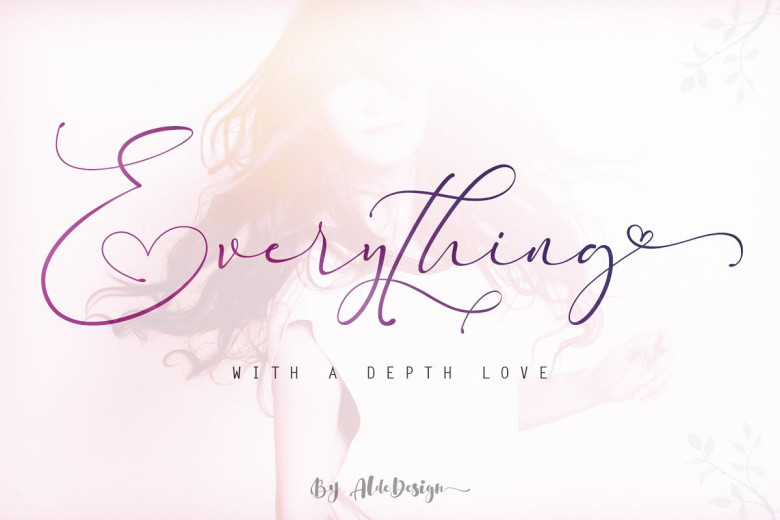
Everything Calligraphy Font
A new fresh handmade calligraphy font with smooth edges. Great, I think this will be the best free font package of the day. Introducing Everything Font. Everything designed and shared by Aldedesign. Everything Font is a stylish calligraphy font that features a varying baseline, smooth line, modern and with a depth love. For those of you who are need a touch of love and modernity for your designs or branding, it can be used for various purposes such as headings, wedding, invitation, signature, logos, branding, t-shirt, letterhead, signage, lable, news, posters, badges etc.